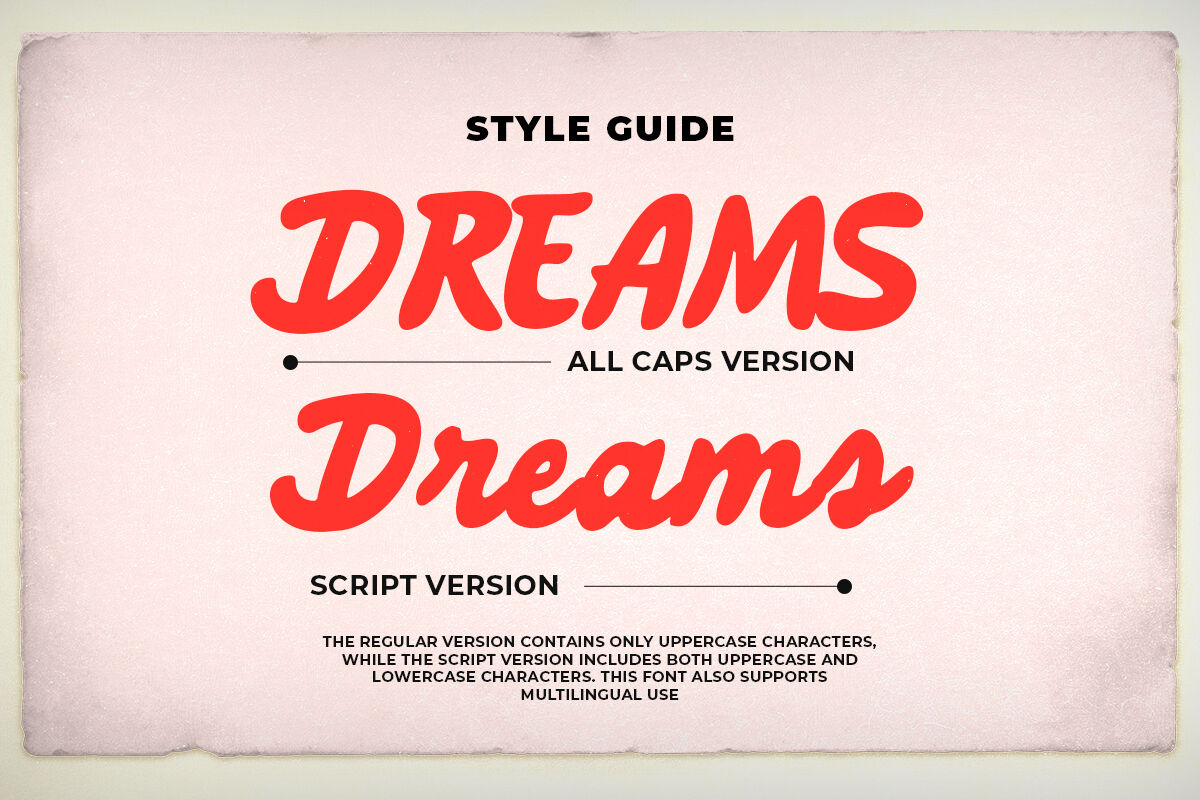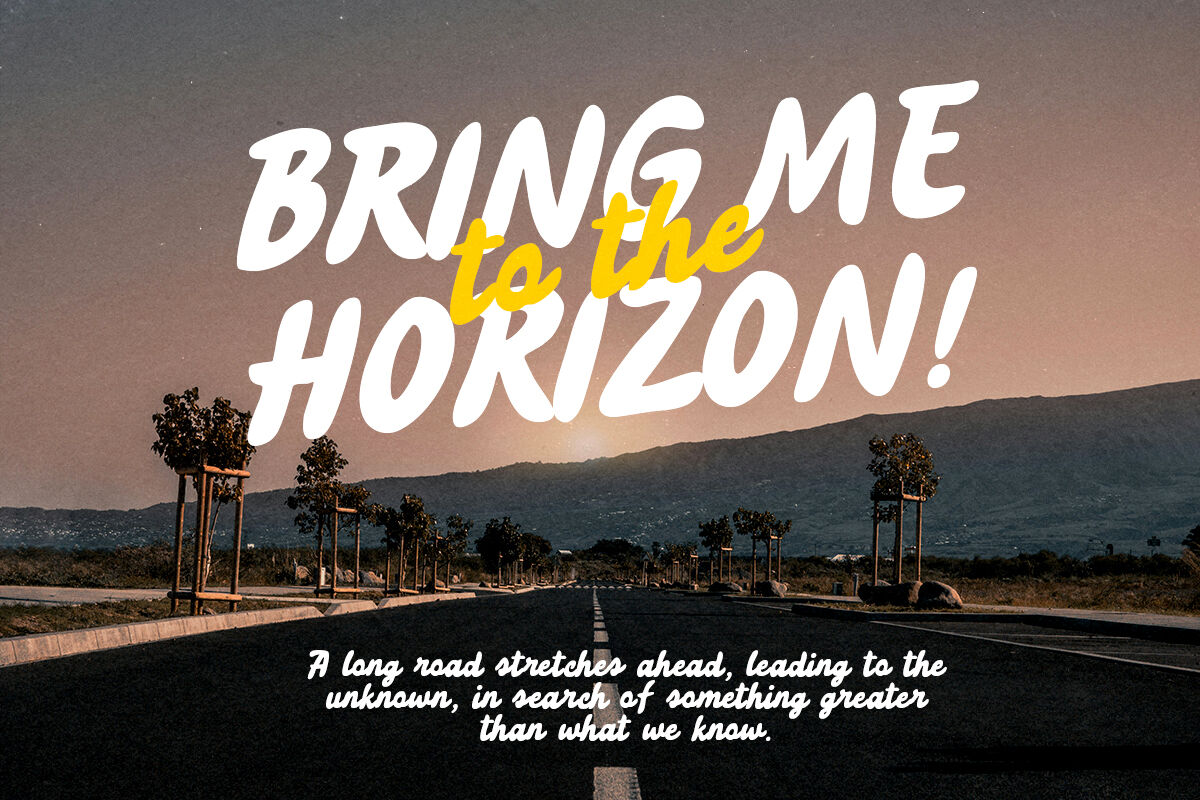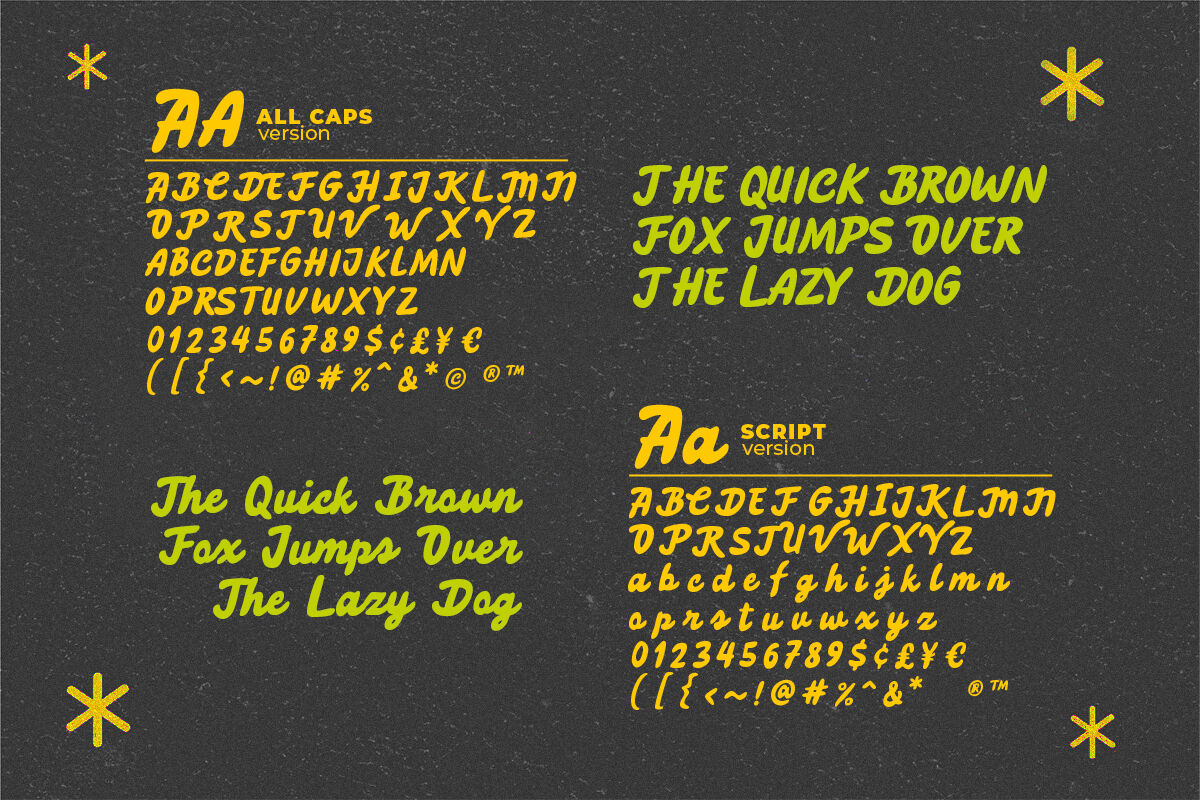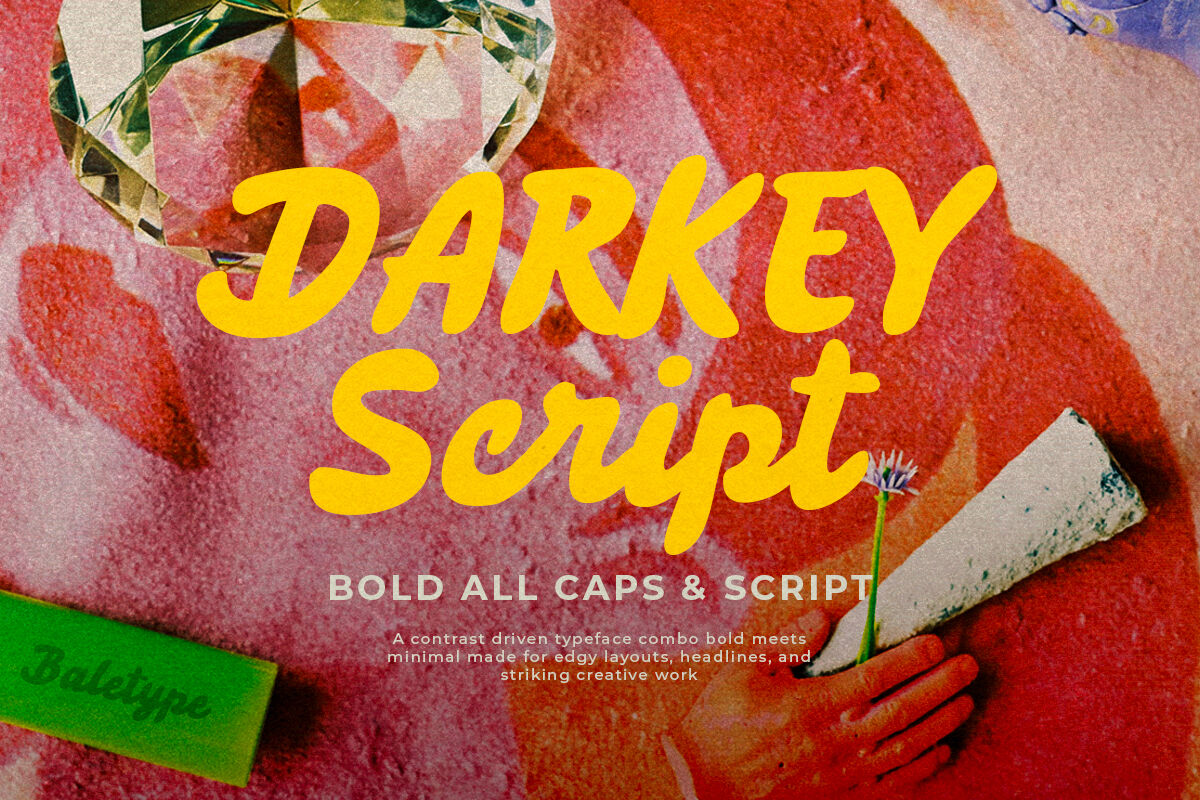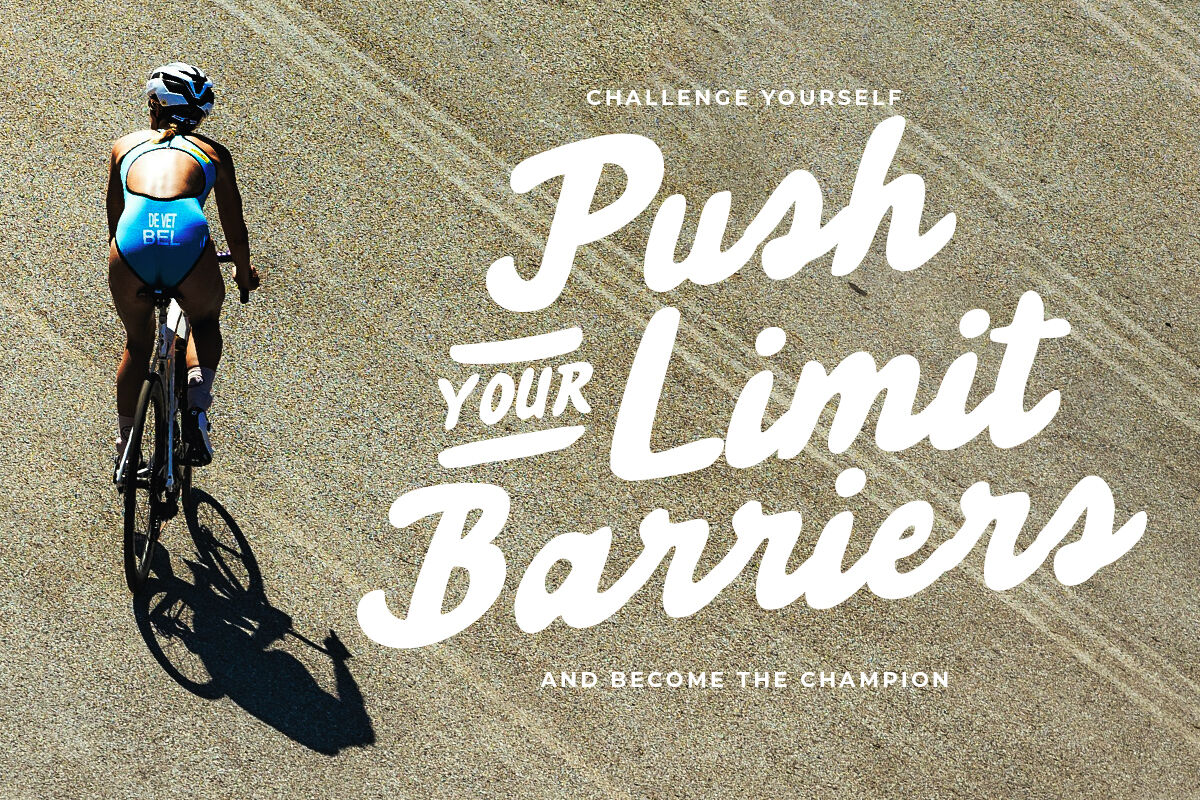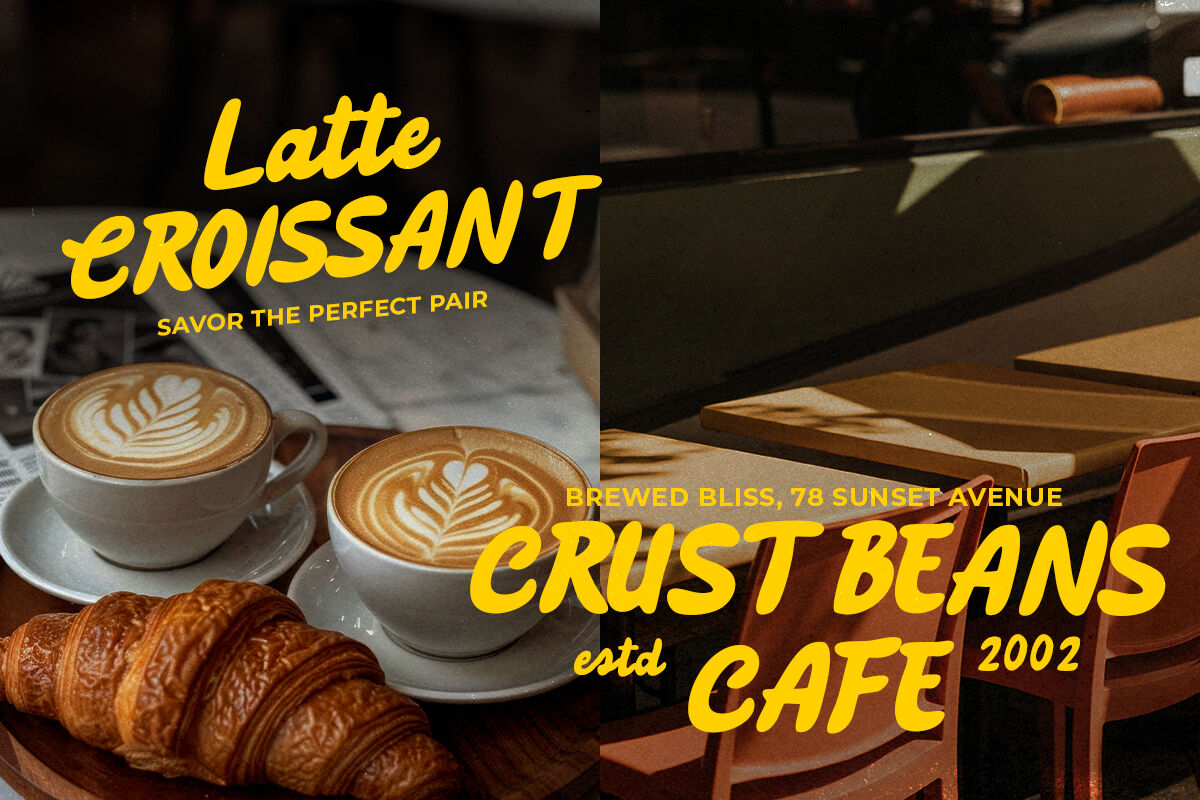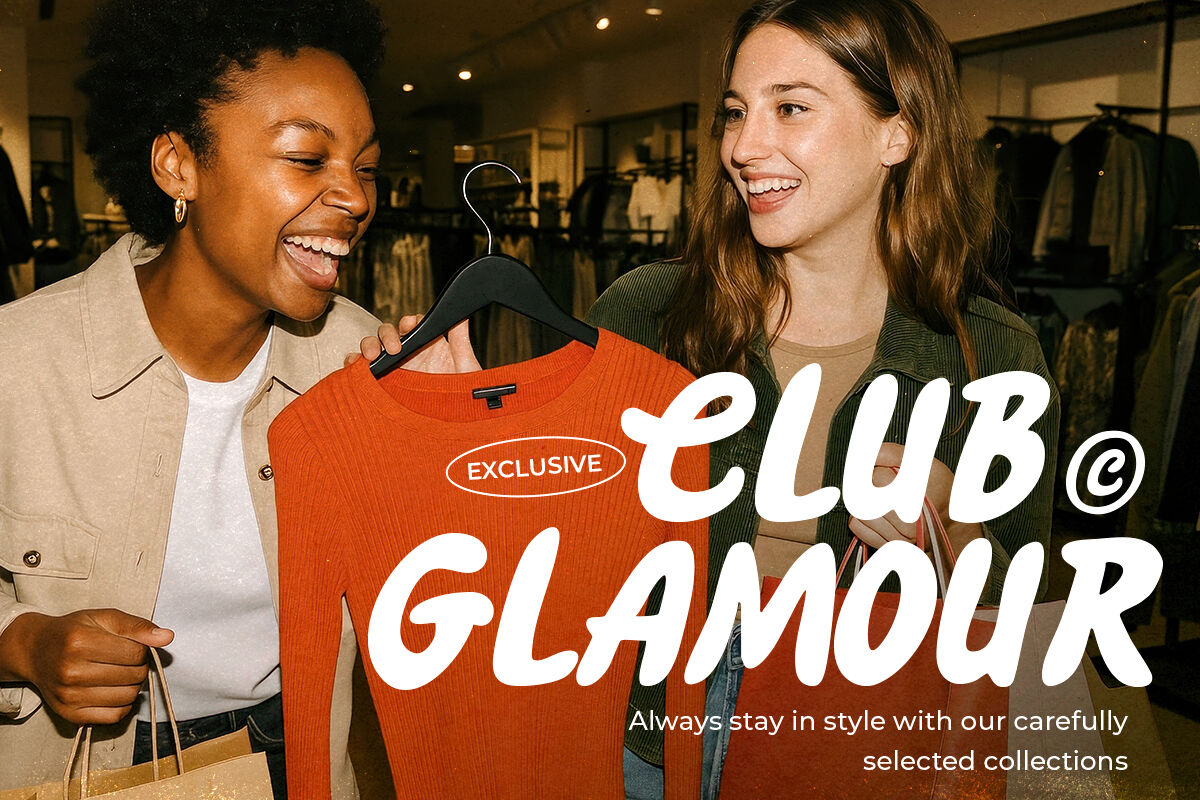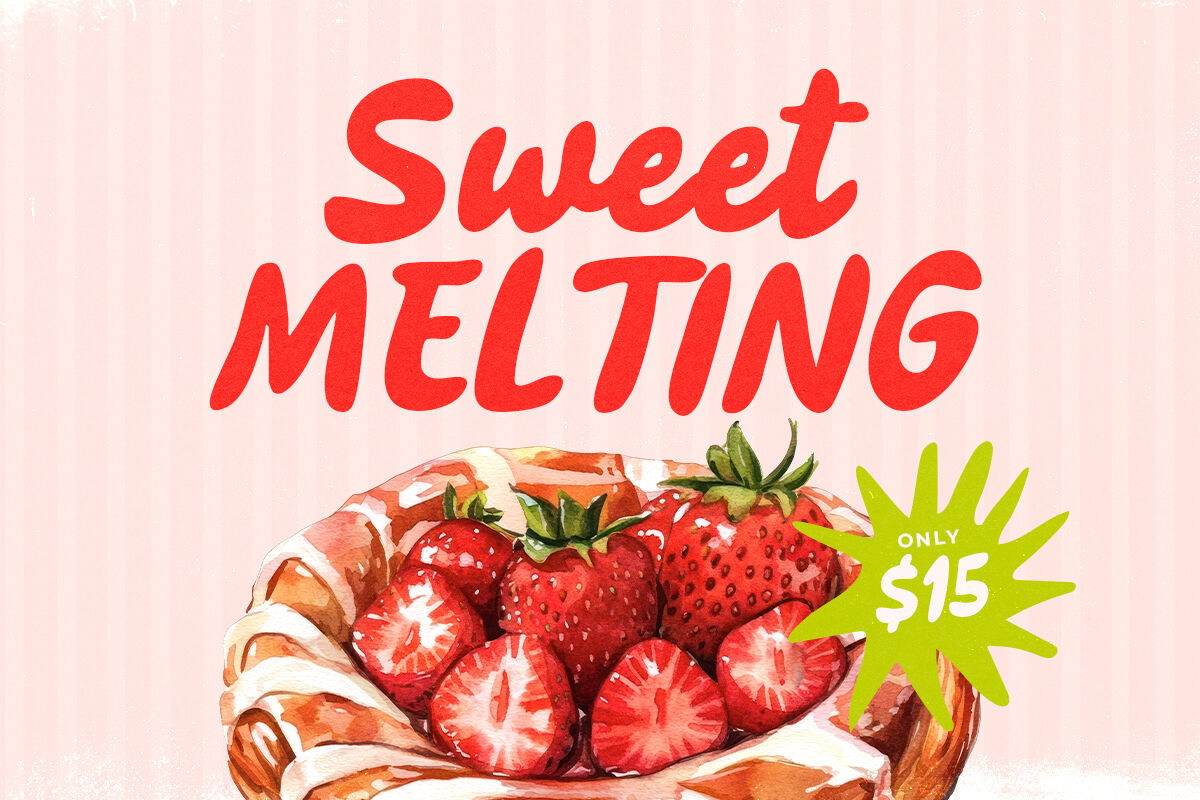
Darkey - Bold Font Duo
Darkey is a bold handwritten font with two version, All Caps and Script. You can use both font in your project and it will complementary each other. This fonts is suitable for any designs such as branding, quotes, logotype, or even tagline. Darkey also support multi language.
Darkey Caps
Darkey Script